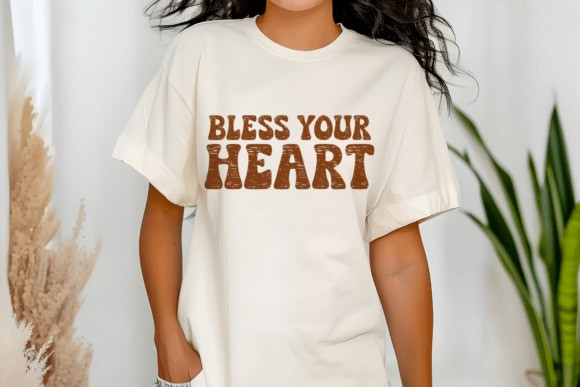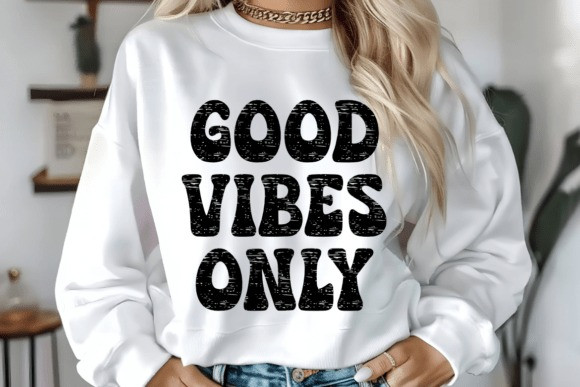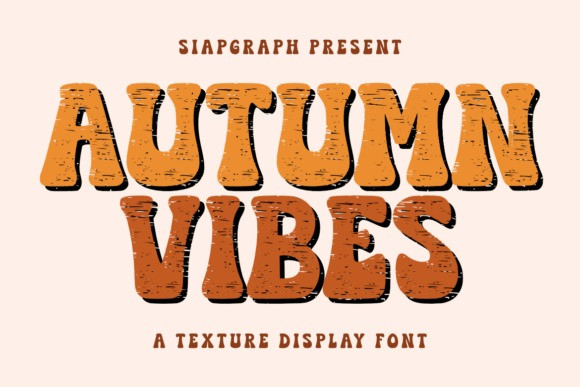
Autumn Vibes Font
Autumn Vibes Font is a groovy, retro, and textured display font inspired by the cozy, nostalgic feeling of the 70s and the beautiful, earthy colors of the fall season.
This font is perfect for creators targeting the craft, POD (Print On Demand), and DIY markets. Its distressed, handmade appearance makes it ideal for digital cutting machines and various printing methods.
Perfect for: crafting SVG designs, t-shirts, mug designs, tote bags, posters, vinyl decals, sublimation projects, scrapbooking, logos, branding, and packaging. The playful and bold style is also great for children’s apparel, educational materials, and product labels.
Great for holiday themes such as Thanksgiving, Halloween, Christmas (with its cozy feel), and general Fall celebrations, bringing a charming, vintage aesthetic to any project!